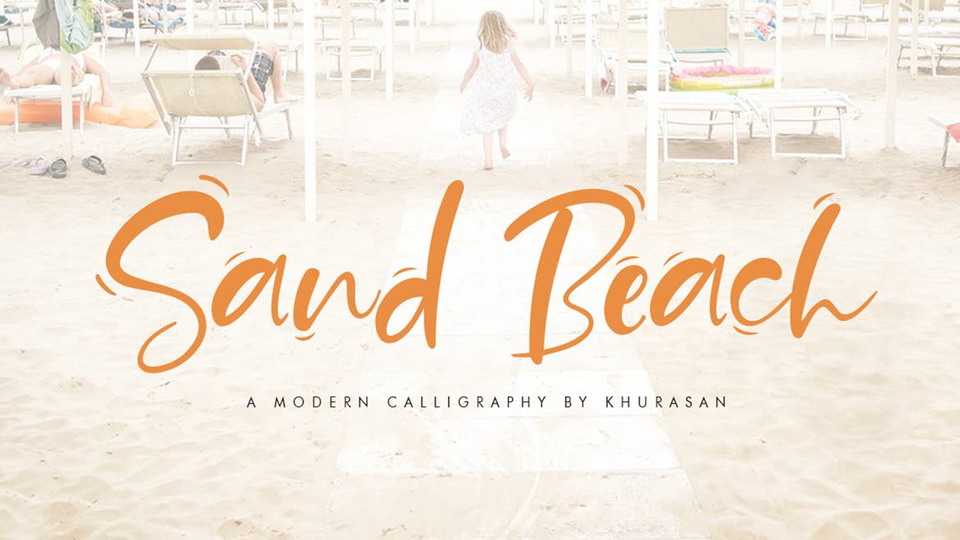
Download Sand Beach Script font, a modern calligraphy typeface with cheerful theme for your fun project. Sand Beach script font suitable for logo, branding, greeting card, poster and any design that you create.